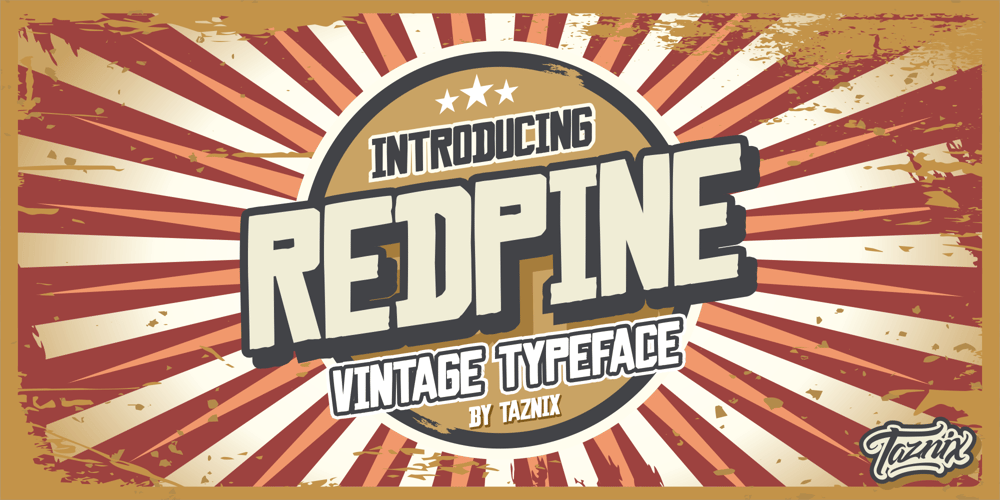
Redpine Font Family was designed by Ricky Hartasni and published by Taznix Creative. Redpine contains 2 styles and family package options. Redpine is an unique and simple sans serif font. Use it to add that special retro touch to any design idea you can think of! There are 2 types of fonts in Redpine, namely clean and textured. If you need a clean and aesthetic design, you can use the regular redpine or you want to use as a rough design or some scratch effect, you can use textured Redpine.Redpine is perfect for branding projects, logo, social media posts, advertisements, product packaging, product designs, label, photography, watermark, invitation, stationery and any projects that need retro taste.What’s Included : Standard glyphs Ligature Works on PC & Mac Simple installations Accessible in the Adobe Illustrator, Adobe Photoshop, Adobe InDesign, even work on Microsoft Word. PUA Encoded Characters – Fully accessible without additional design software. Fonts include multilingual support for; ä ö ü Ä Ö Ü ß ¿ ¡ Image used : All photographs/pictures/vector used in the preview are not included, they are intended for illustration purpose only.Hope you enjoy with our font!Taznix